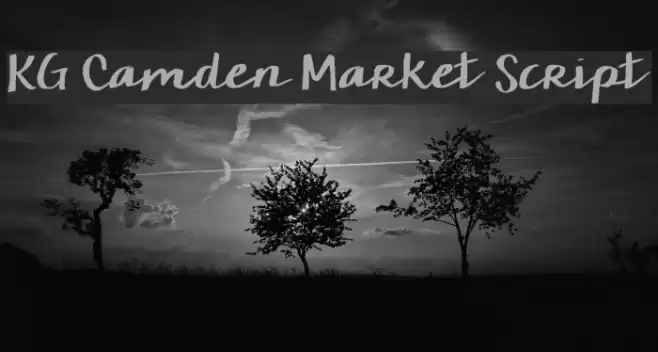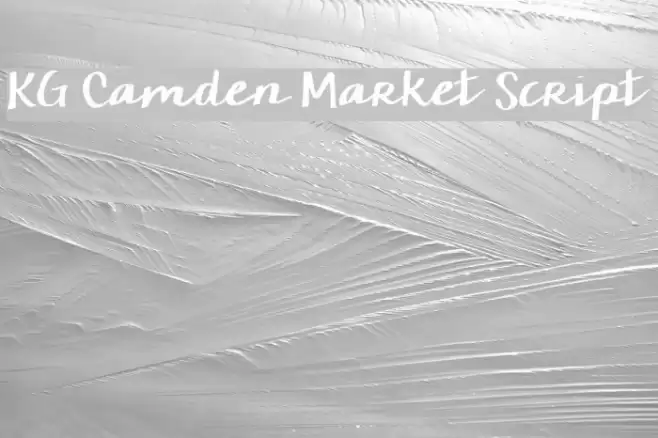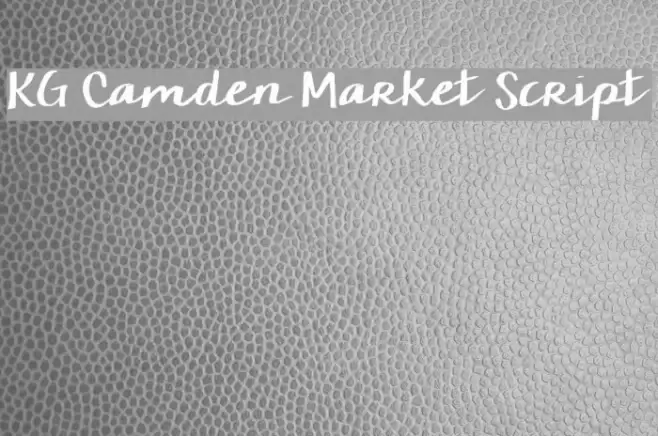
KG Camden Market Script Font
Fonts by www.kimberlygeswein.com - Kimberly Geswein
| Область применения | Logos, Headlines, Posters |
| Рекомендуемые проекты | Ideal for branding projects, creative invitations, posters, and social media graphics where a personal and artistic touch is desired. |